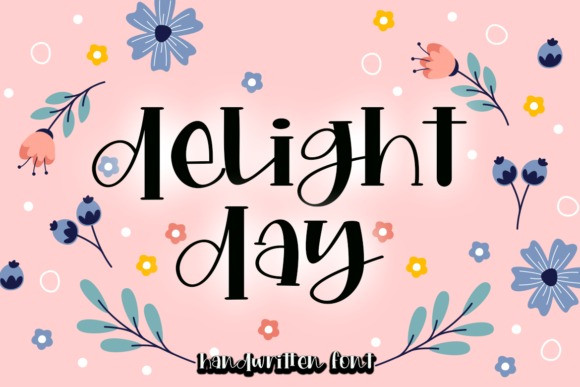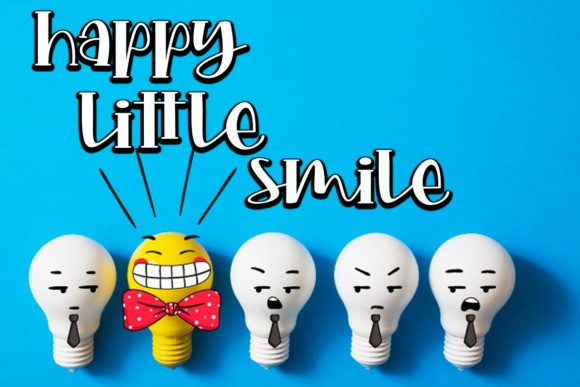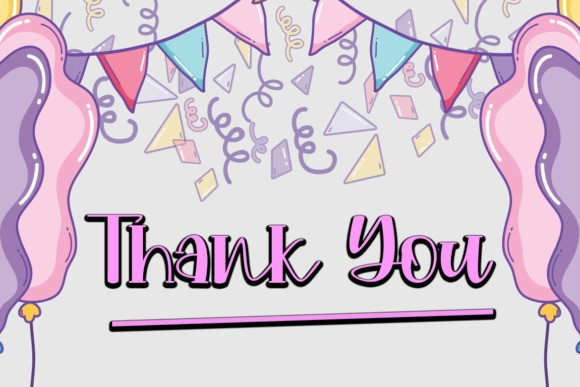
Delight Day Display Font
Delight Day embodies fun, quirkiness and authenticity. This enchanting handwritten font will turn any creative idea into a true standout.